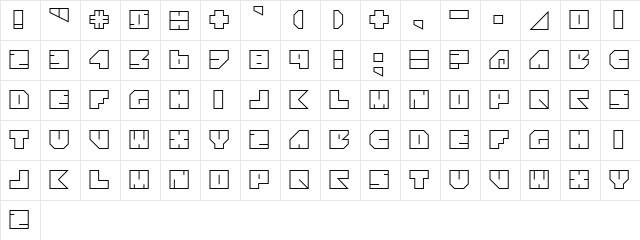
Four Four Regular
Design Context for Four Four Typeface
Four Four takes a measured approach to typography — its balanced proportions and neutral character make it a reliable workhorse for both digital and print work.